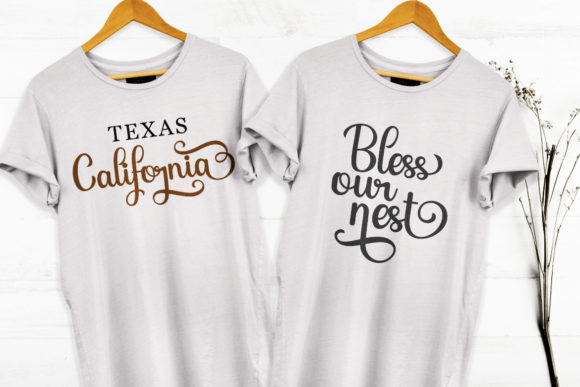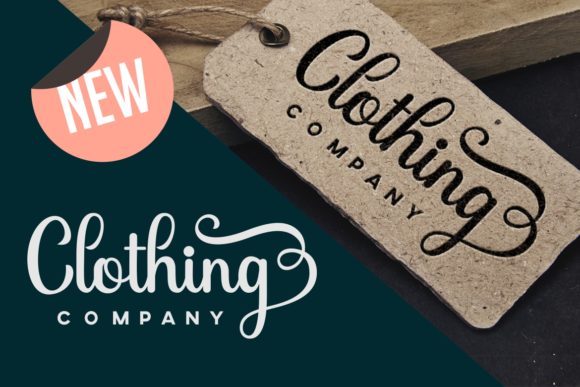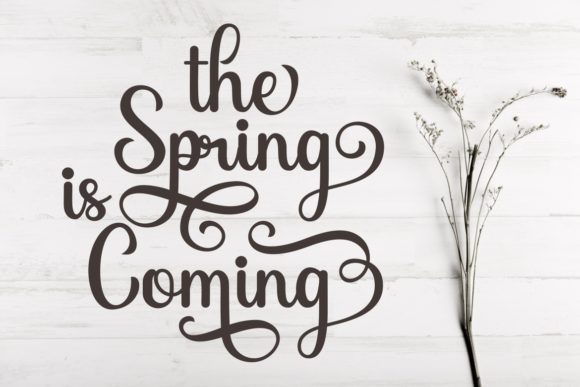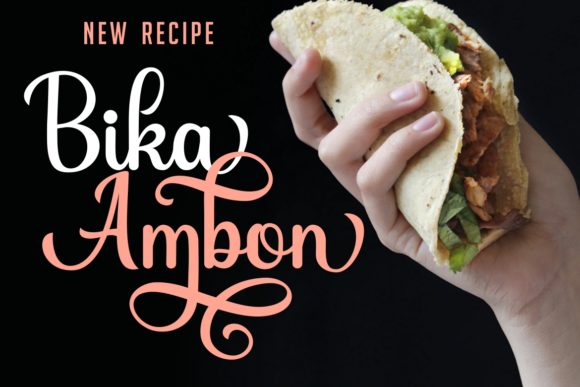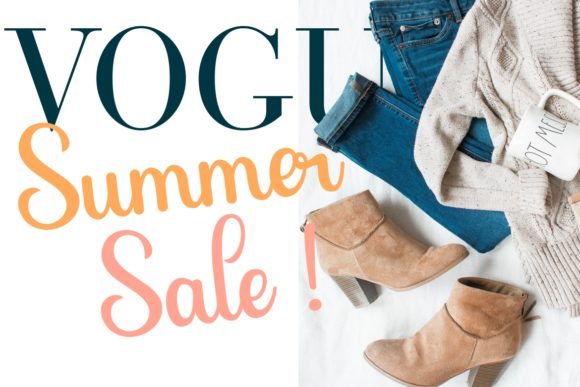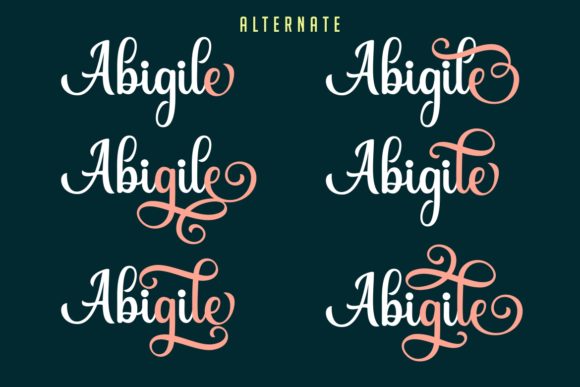
Introducing Abigile Font: The Perfect Blend of Modernity and Elegance
In the world of typography, fonts play a crucial role in conveying the tone and personality of a brand or design. With the numerous options available, finding the perfect font that combines style, readability, and versatility can be a daunting task. However, if you’re looking for a modern handwritten font that ticks all the right boxes, look no further than Abigile Font.
What is Abigile Font?
Abigile is a carefully handcrafted modern handwritten font designed to become a true favorite among designers and crafters. Its casual charm makes it appear wonderfully down-to-earth, readable, and incredibly versatile. Whether you’re working on a busy background or creating a standalone headline, Abigile Font is the perfect choice.
Key Features of Abigile Font
- Modern Handwritten Style: Abigile Font boasts a modern handwritten style that exudes elegance and sophistication. Its unique character makes it stand out from traditional fonts, adding a touch of personality to your designs.
- Casual Charm: The font’s casual charm makes it perfect for designs that require a friendly and approachable tone. Whether you’re creating a logo, brochure, or website, Abigile Font will add a warm and inviting touch.
- Readability: One of the key features of Abigile Font is its exceptional readability. The font is designed to be clear and legible, making it perfect for body text, headlines, and titles.
- Versatility: Abigile Font is incredibly versatile, making it suitable for a wide range of design applications. From branding and advertising to packaging and digital media, this font can be used in various contexts.
Why Choose Abigile Font?
With so many fonts available, why should you choose Abigile Font for your next design project? Here are a few compelling reasons:
- Unique Character: Abigile Font has a unique character that sets it apart from other fonts. Its modern handwritten style and casual charm make it a standout choice for designers looking for something fresh and exciting.
- Easy to Read: The font’s exceptional readability makes it perfect for designs that require a clear and legible text. Whether you’re creating a website, brochure, or poster, Abigile Font will ensure that your message is conveyed effectively.
- Flexible: Abigile Font is incredibly flexible, making it suitable for various design applications. From small body text to large headlines, this font can be used in a range of contexts.
- High-Quality: Abigile Font is a high-quality font that is designed to deliver exceptional results. Its careful handcrafting ensures that every character is precise and elegant, making it perfect for professional designs.
How to Use Abigile Font in Your Designs
Abigile Font is easy to use and can be incorporated into your designs in a few simple steps:
- Choose Your Font Size: Select the font size that suits your design requirements. Abigile Font is clear and legible at various sizes, making it perfect for body text, headlines, and titles.
- Experiment with Colors and Styles: Abigile Font comes in a range of styles and can be paired with various colors to create stunning designs. Experiment with different combinations to find the perfect look for your project.
| Author | HansCo |
In conclusion, Abigile Font is a modern handwritten font that offers a perfect blend of style, readability, and versatility. Its casual charm, unique character, and exceptional readability make it a standout choice for designers and crafters. Whether you’re working on a branding project, creating a website, or designing a brochure, Abigile Font is the perfect choice. With its high-quality design and flexibility, Abigile Font is sure to become a true favorite in your design arsenal.
Final Tips and Recommendations
- Pair with Other Fonts: Abigile Font can be paired with other fonts to create stunning designs. Experiment with different combinations to find the perfect look for your project.
- Use in Digital and Print Media: Abigile Font is suitable for both digital and print media. Use it in your website designs, social media graphics, brochures, and posters to create a consistent brand image.
- Experiment with Effects and Styles: Abigile Font can be used with various effects and styles to create unique designs. Experiment with different techniques to find the perfect look for your project.